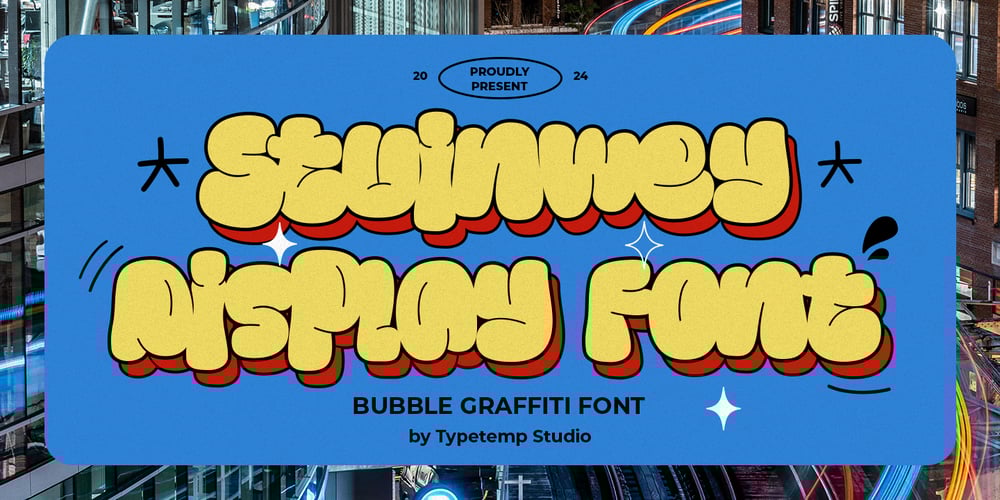
Stuinwey Display Font Family was designed by Haris Purnama Putra, Egi Ahmad Mufid and published by Typetemp Studio. Stuinwey Display contains 1 styles and family package options. Stuinwey – Bubble Graffiti Display a font with Graffity Bubble Style. Comes with alternatives and ligatures, helps to create stunning Posters, Branding, Tshirt, Social Media Graphics and much more.